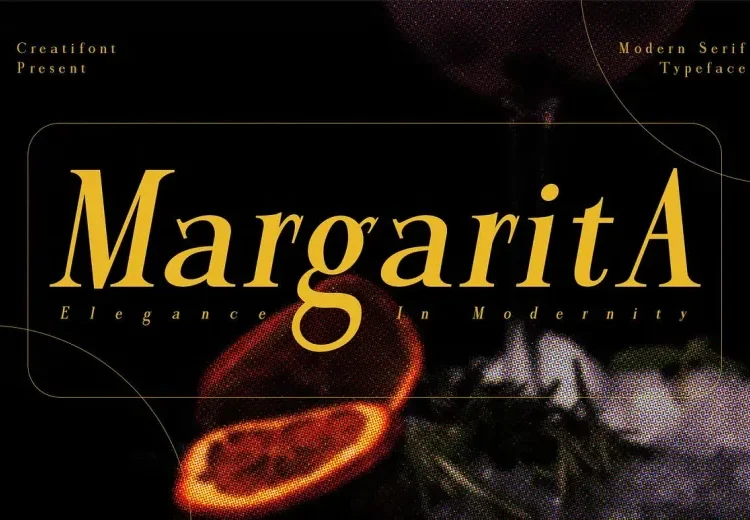
CF Margarita Font
Margarita is a refined font that elegantly combines serif typography with modern influences, resulting in a captivating and versatile design. Its sleek lines and graceful letterforms embody both sophistication and contemporary flair, making it an ideal choice for a range of projects. Whether you’re designing packaging, logos, or titles, Margarita seamlessly blends classic and modern aesthetics to enhance your work with a touch of elegance.
The font’s unique balance of traditional and modern styles ensures it stands out in any creative endeavor, adding a refined edge to your designs. Margarita’s versatility makes it a valuable asset for various applications, allowing you to create visually striking and sophisticated results.